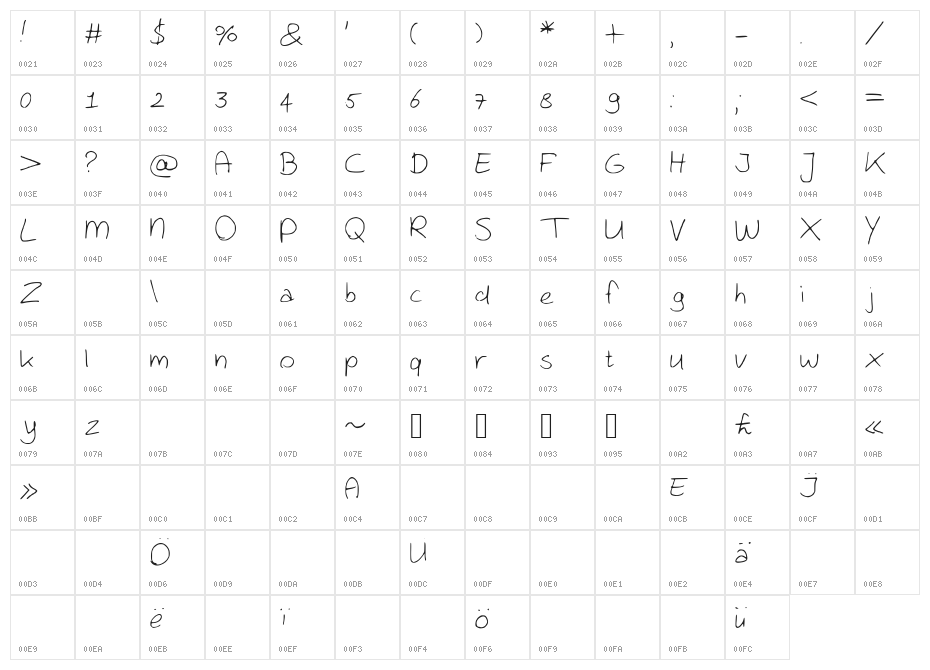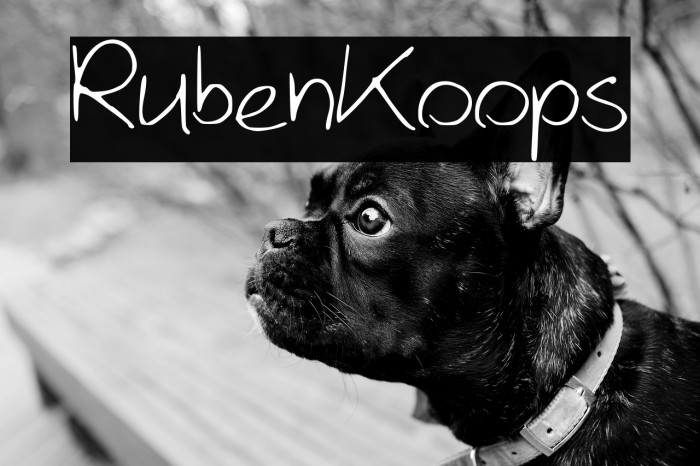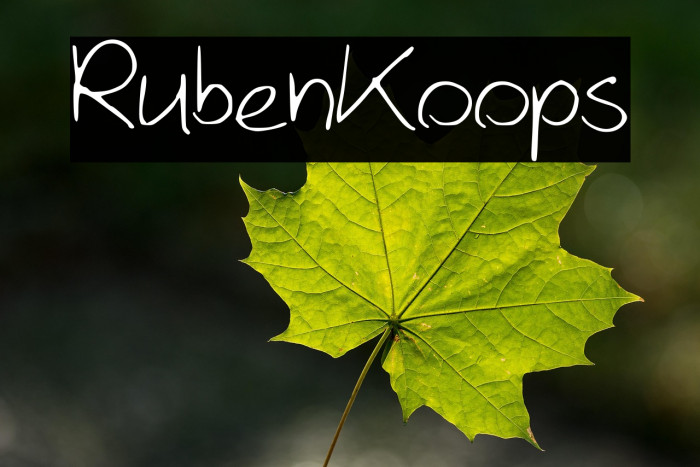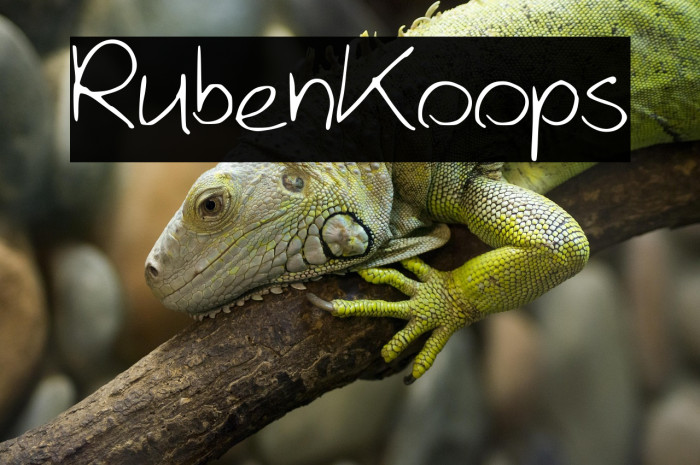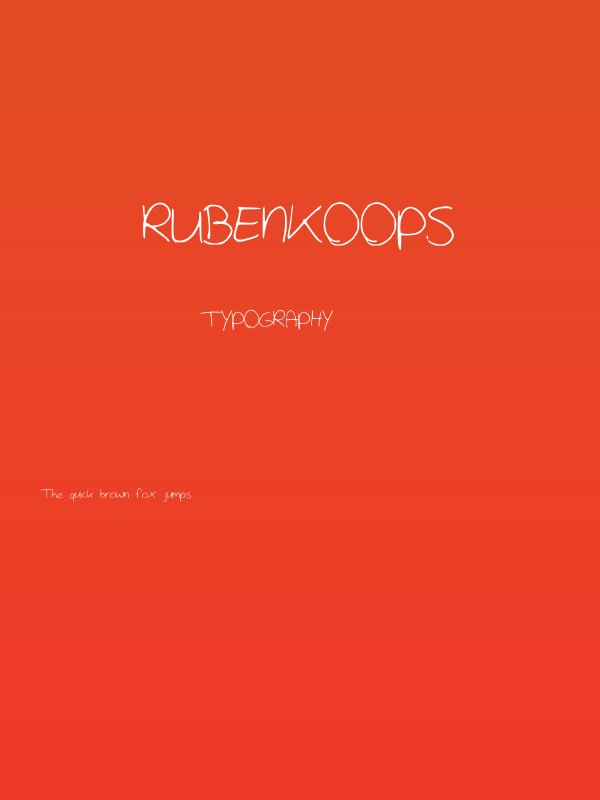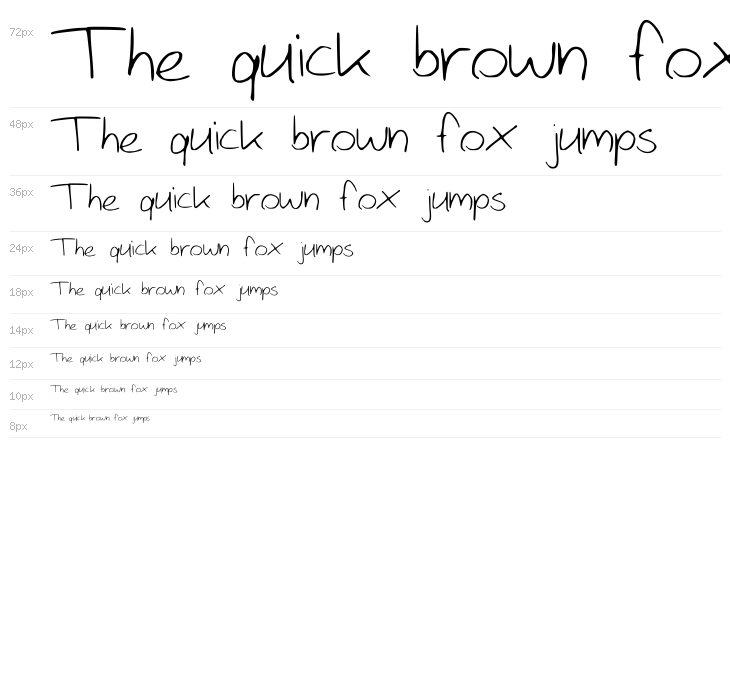
RubenKoops Font
RubenKoops Description
This font exudes a casual, handwritten style with a playful and informal appearance. The letters are slightly slanted, giving them a dynamic and lively feel. The strokes are consistent in thickness, providing a uniform look across all characters. The uppercase letters are bold and prominent, while the lowercase letters maintain a friendly and approachable demeanor. The numerals and special characters follow the same handwritten aesthetic, ensuring cohesion throughout the font set.
| Overall Style | Casual |
| Use Case | Logos, Greeting cards, Informal communications |
| Proposed Projects | Ideal for personal notes, greeting cards, children's books, and casual branding projects. |